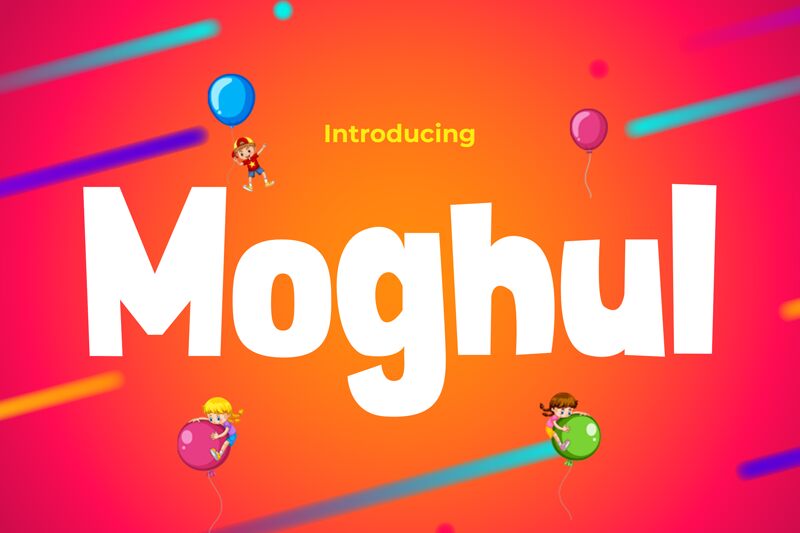
Moghul font by Pinisiart is a free cartoon typeface characterized by its rounded, soft, and friendly features. The contemporary and approachable style of the letters is energetic and inviting, making it perfect for all sorts of fun and playful designs. Moghul is casual and highly readable.
This is an ideal font for children’s book covers, coloring books, cartoon series, comic strips, or magazine covers’ headlines. It can also be used for branding fun products like ice cream, sweets, or dessert brands. Use it in games for children or any other fun project.